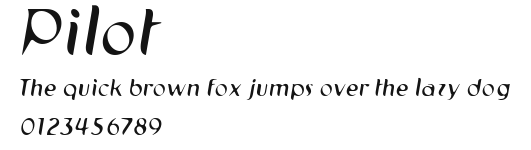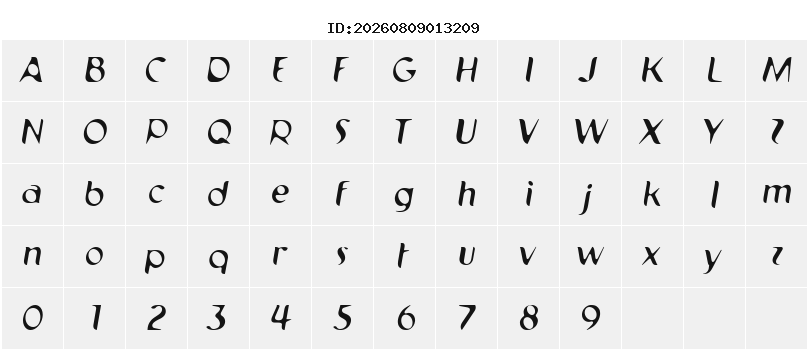
Pilot Preview
• Font Name: Pilot
• Full Font Name: Pilot AL-
About Pilot.ttf
Pilot.ttf is a modern, elegant sans-serif font designed for ultimate readability and visual harmony. Perfect for branding, headlines, web design, and print materials.